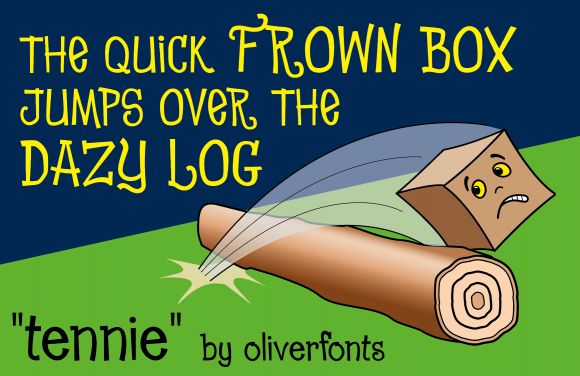
Prepare yourself to be captivated by Tennie, a display font family that fearlessly defies conventions and unleashes a world of creative possibilities. Crafted by the visionary OLIVERFONTS, Tennie is not just a font; it's an artistic rebellion, a revolution against the mundane. With its playful and unpredictable nature, Tennie is the ultimate choice for those seeking to inject a dose of whimsy and unconventionality into their designs.
Enter a realm where creativity knows no bounds, where your imagination can run wild. Tennie's bold and quirky personality shines through in every letterform, daring you to push the boundaries of design. Its playful curves and unexpected twists create a visual symphony that demands attention, making your designs impossible to ignore. Unleash your inner child and let Tennie lead you on an artistic adventure like no other.
Step into a world where fonts take on a life of their own, where each character possesses a unique personality. Tennie's lively and expressive nature makes it the perfect choice for capturing attention and conveying messages with impact. Whether you're creating eye-catching posters, vibrant logos, or captivating social media graphics, Tennie will elevate your designs to new heights of creativity.
But Tennie is more than just a pretty face. It's a font that's as versatile as it is unconventional. Its carefully crafted letterforms ensure readability even at small sizes, making it suitable for a wide range of applications. From website headers to product packaging, Tennie effortlessly adapts to your design needs, delivering a consistent and impactful message.
With Tennie by your side, you'll never have to worry about creative blocks or uninspired designs again. Its boundless energy and infectious personality will ignite your imagination and open up a world of endless possibilities. So, embrace the unconventional, break free from the ordinary, and let Tennie guide you on a journey of creativity and self-expression.